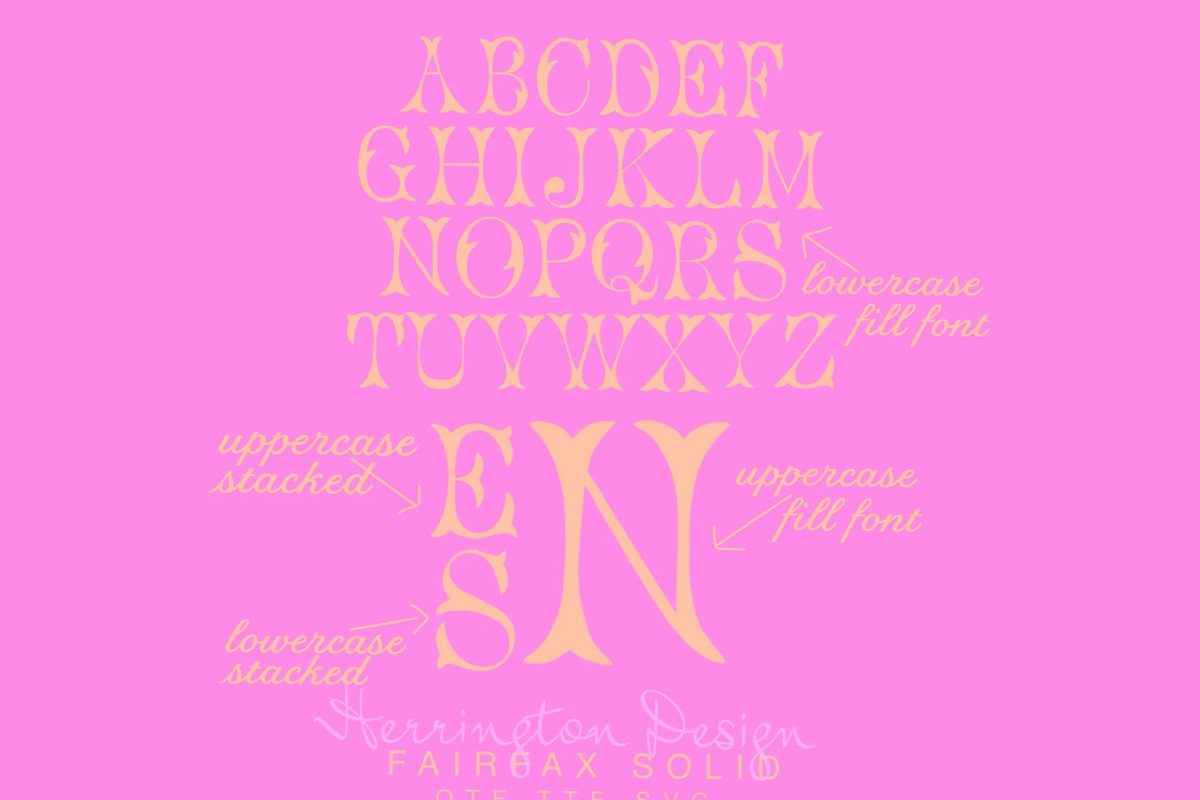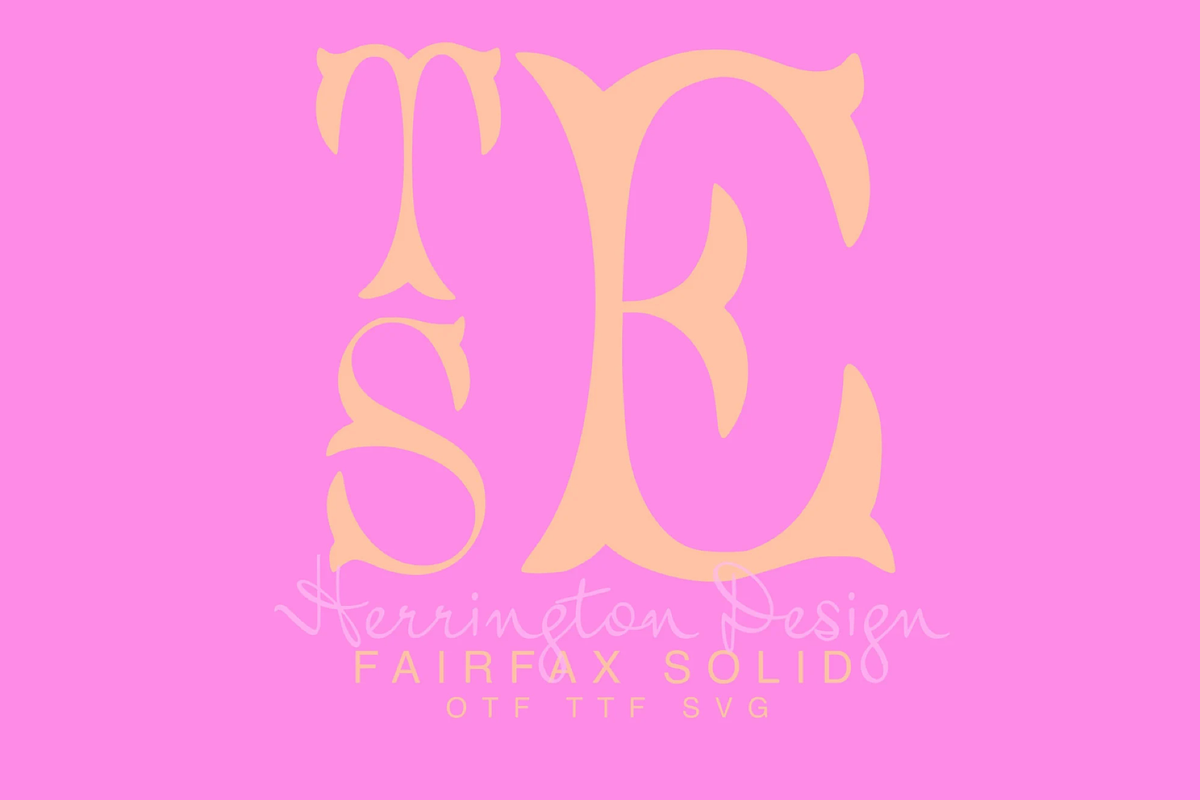
Fairfax Solid Fishtail Monogram Font
Fairfax Solid Fishtail Monogram Font by HERRINGTON DESIGN is a font selected for branding, posters, packaging, typography.
- The Fairfax Fill Typeface font includes 26 letters in two sizes.
Fairfax Solid Fishtail Monogram Font by HERRINGTON DESIGN fits naturally into Branding, posters, packaging, typography.